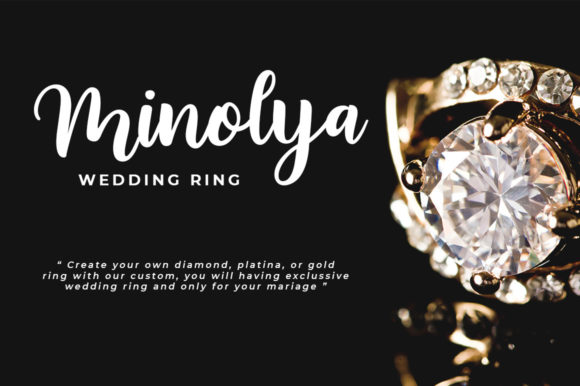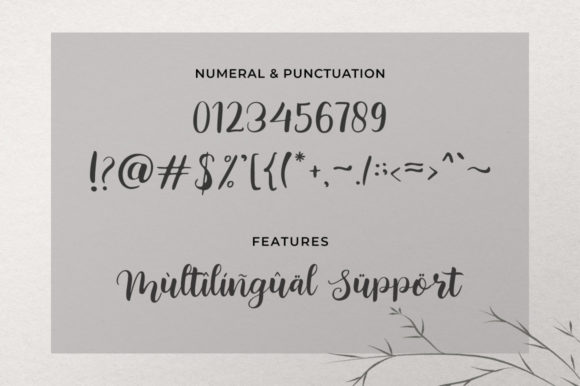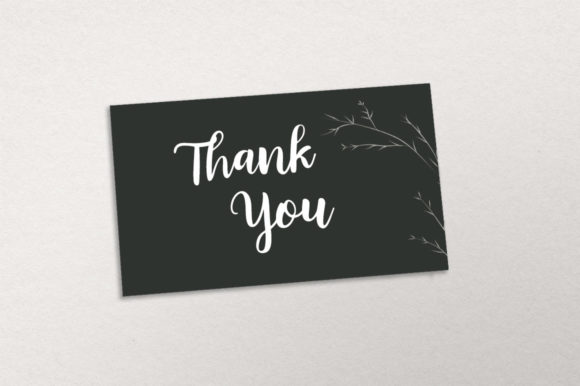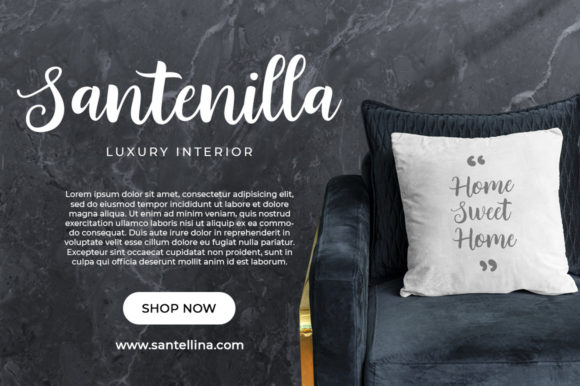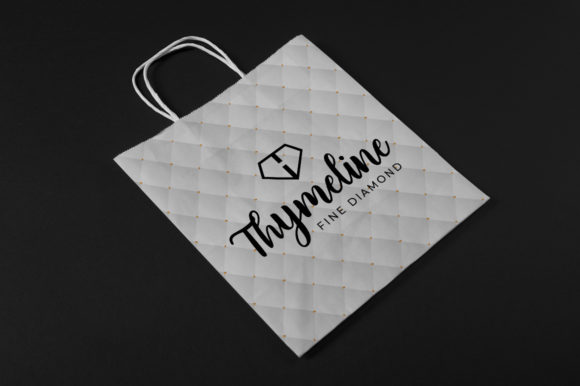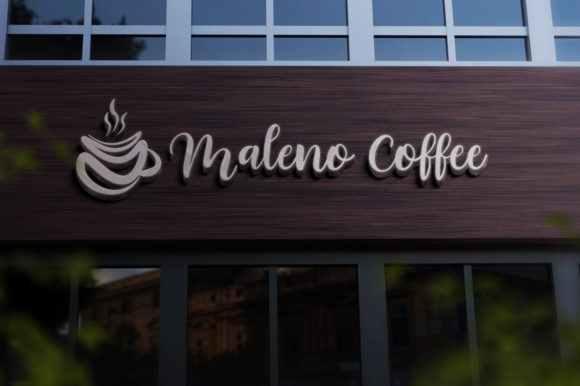
About Yolanda Font
Yolanda is a lovely and timeless handwritten font. It is the best choice for creating eye catching logos, branding and quotes. Every letter has a unique and beautiful touch, which will make your design come alive!